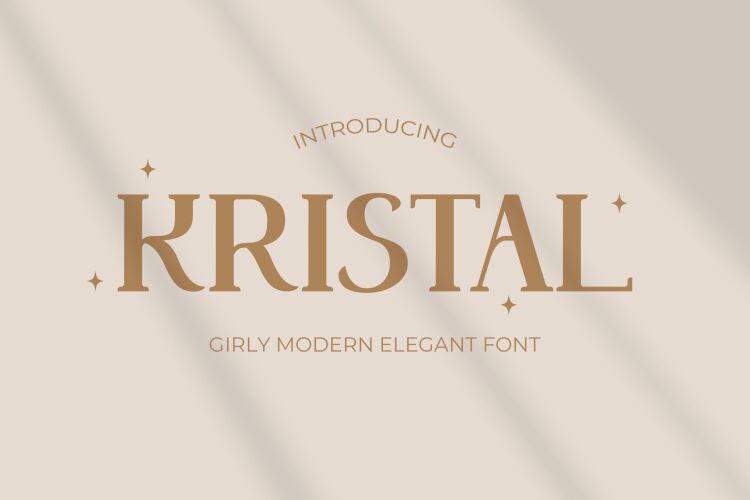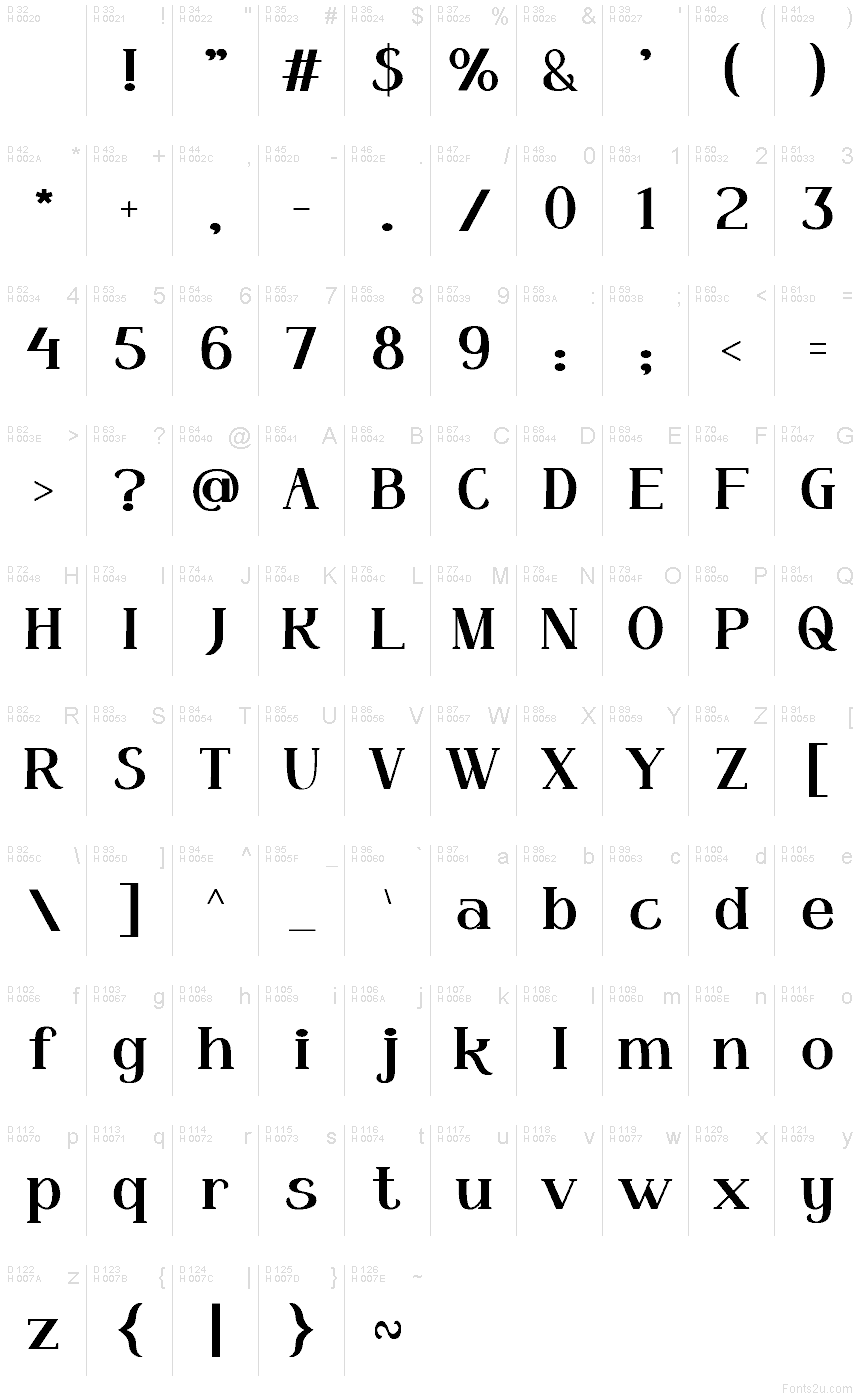
Kristal
Kristal font by Pinisiart is a free high-contrast serif display font. It stands out with razor-edged wedge serifs, glossy curves, and tight vertical rhythm that feels cut from glass—sharp, reflective, and deliberate. The thick-and-thin contrast lands with editorial drama, while the compact spacing keeps headlines punchy without feeling cramped, giving logos and titles a sculpted, high-end sheen.
Using Kristal, you’ll elevate beauty branding, luxury packaging, magazine mastheads, fashion lookbooks, book covers, and event posters. This free font thrives at large sizes where its crisp serifs and polished tension can shine; add a hair of tracking for smaller headlines. For body copy or captions, pair it with a clean grotesque sans to keep the spotlight on Kristal’s chiseled forms.